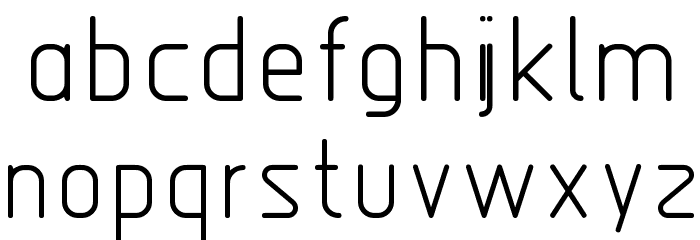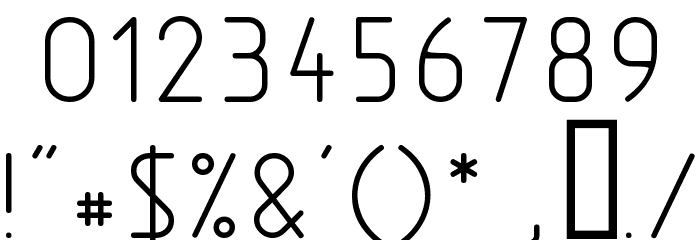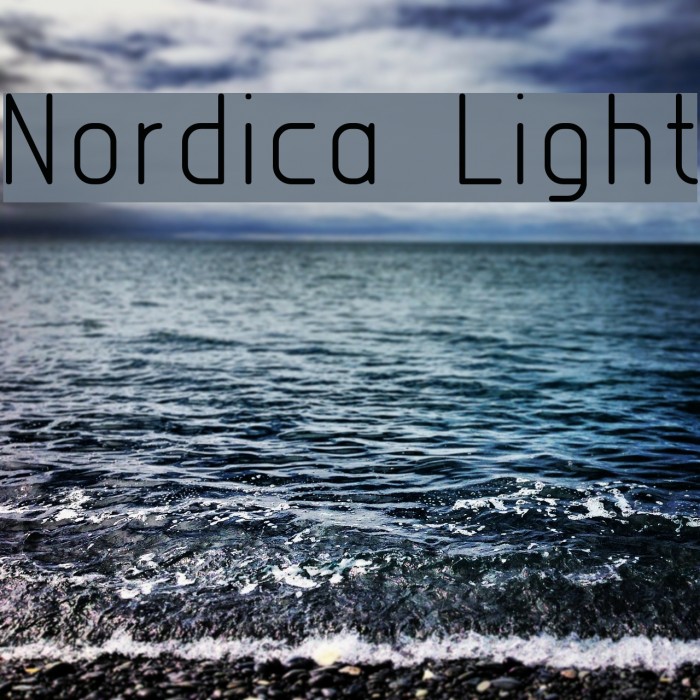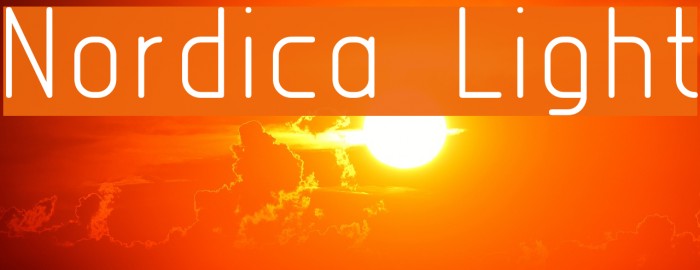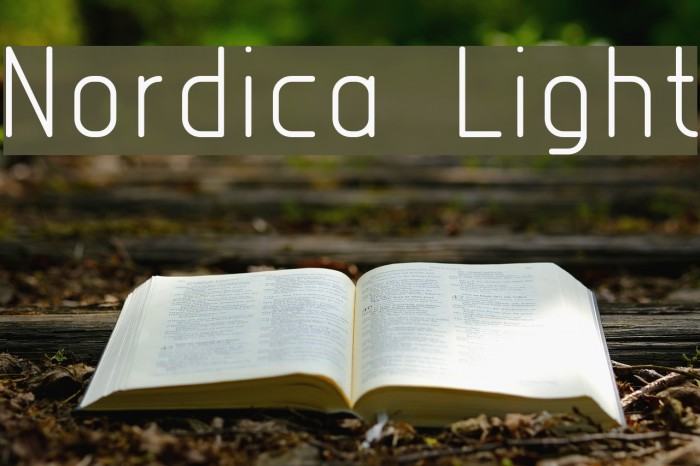
Nordica Light Font
This font features a clean and modern sans-serif design with a light weight, making it ideal for minimalist and contemporary projects. The characters are evenly spaced with a slight geometric influence, giving them a structured and orderly appearance. The uppercase letters are tall and narrow, while the lowercase letters maintain a consistent height, contributing to a uniform look. The numerals are clear and legible, suitable for both digital and print media. Special characters are distinct and well-defined, ensuring versatility in various applications.
A modern, light sans-serif font with a geometric influence and clean lines.
- Proposed Projects: Ideal for branding, web design, user interfaces, and editorial layouts where a modern and clean aesthetic is desired.